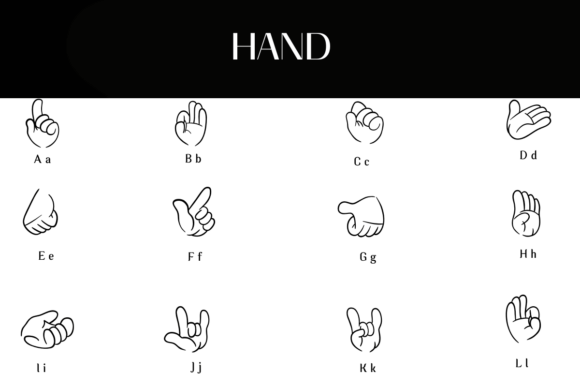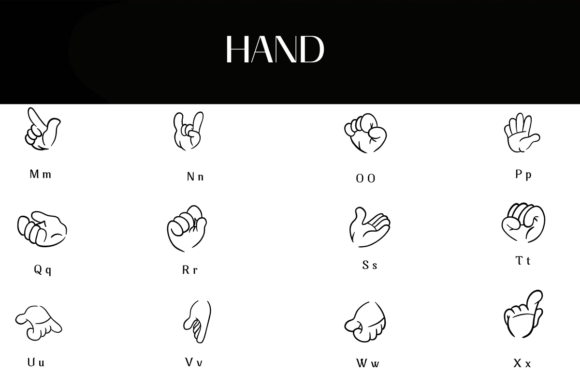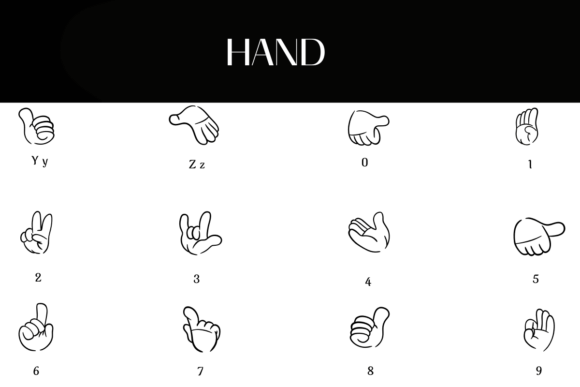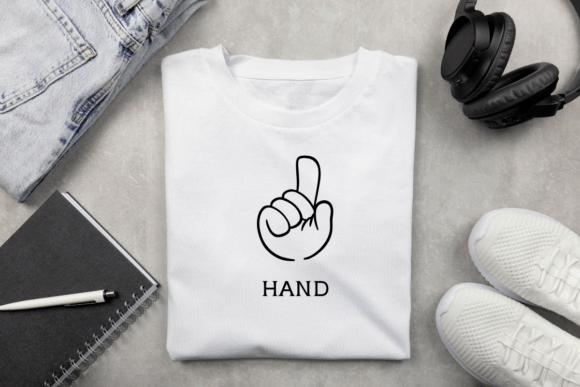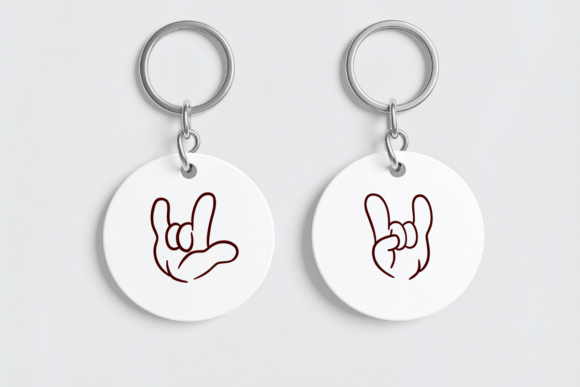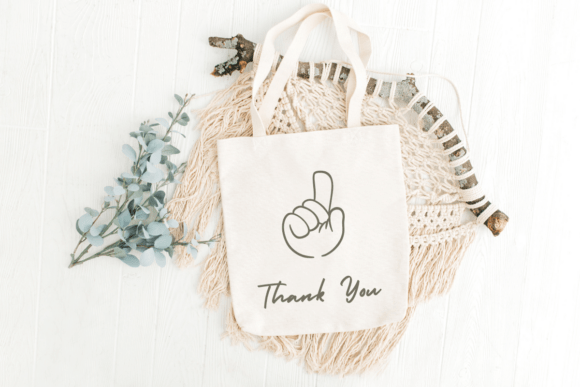
Add a Touch of Playful Personality to Your Layouts with Hand Font
Are you tired of using the same old boring fonts and icons in your designs? Do you want to add a touch of playful personality to your layouts and make them stand out? Look no further than Hand Dingbats, a comprehensive icon font designed for maximum expression. With a vast library of “toony” hand gestures, this font is perfect for designers and crafters looking to add some fun and whimsy to their work.
What is Hand Font?
Hand Font, also known as Hand Dingbats, is a unique icon font that features a wide range of hand gestures, from thumbs up and peace signs to pointing fingers and rock-on symbols. This font allows you to drop high-quality illustrations into your work with a simple keystroke, making it easy to add visual interest and personality to your designs.
Key Features of Hand Font
- Vast Library of Icons: With a vast library of hand gestures, you’re sure to find the perfect icon to match your design style.
- Bold, Clean Outlines: Each icon is crafted with bold, clean outlines, making them highly legible and perfect for modern, energetic designs.
- Easy to Use: Simply type in the corresponding keystroke to drop a high-quality illustration into your work.
- High-Quality Illustrations: Each icon is designed to be high-quality and visually appealing, making your designs stand out.
Perfect for Gaming, Educational Materials, and Kids’ Apparel
Hand Font is ideal for a variety of design applications, including:
- Gaming: Add a touch of fun and personality to your game designs with Hand Font’s playful hand gestures.
- Educational Materials: Use Hand Font to create engaging and interactive educational materials that kids will love.
- Kids’ Apparel: Add a playful touch to your kids’ apparel designs with Hand Font’s fun and colorful icons.
Benefits of Using Hand Font
By using Hand Font in your designs, you’ll enjoy a range of benefits, including:
- Increased Visual Interest: Hand Font’s playful icons will add visual interest to your designs and make them stand out.
- Improved Engagement: The fun and playful nature of Hand Font’s icons will help improve engagement with your audience.
- Enhanced Creativity: With a vast library of icons to choose from, you’ll be able to express your creativity and bring your designs to life.
Tips for Using Hand Font
Here are a few tips for getting the most out of Hand Font:
- Experiment with Different Icons: Don’t be afraid to try out different icons and see what works best for your design.
- Mix and Match Icons: Combine different icons to create a unique and visually appealing design.
- Use Hand Font to Add Context: Use Hand Font’s icons to add context to your designs and help tell a story.
Hand Font is a powerful and versatile icon font that’s perfect for designers and crafters looking to add a touch of playful personality to their layouts. With its vast library of hand gestures, bold and clean outlines, and ease of use, Hand Font is ideal for a wide range of design applications. Whether you’re working on a gaming project, educational materials, or kids’ apparel, Hand Font is sure to bring a smile to your audience’s face. So why wait? Give Hand Font a try today and see the difference it can make in your designs!